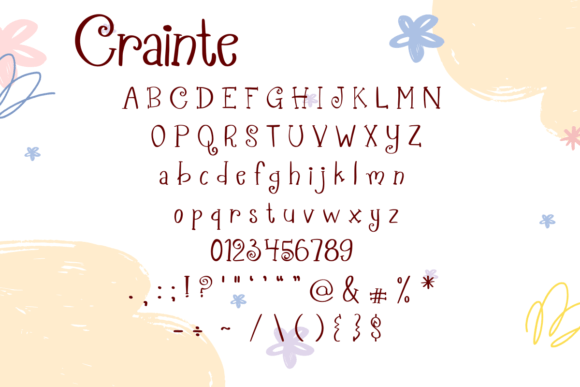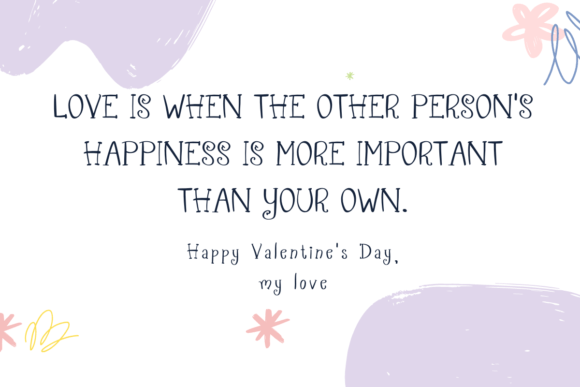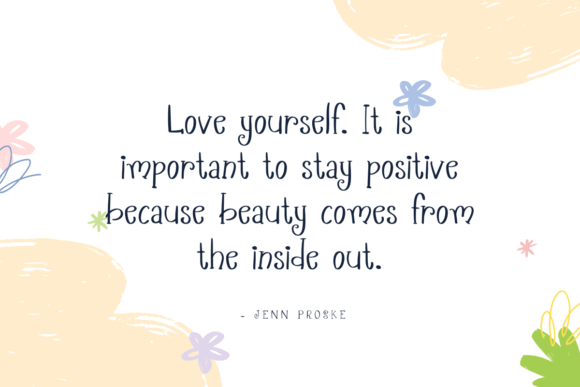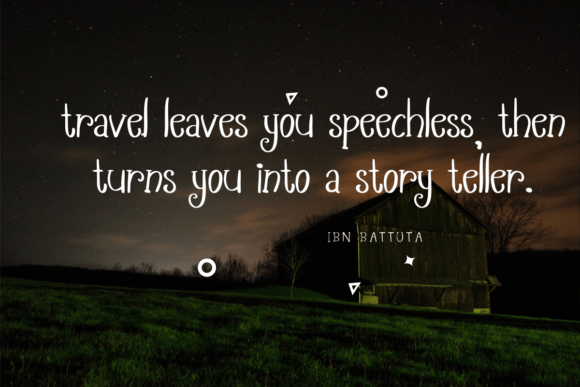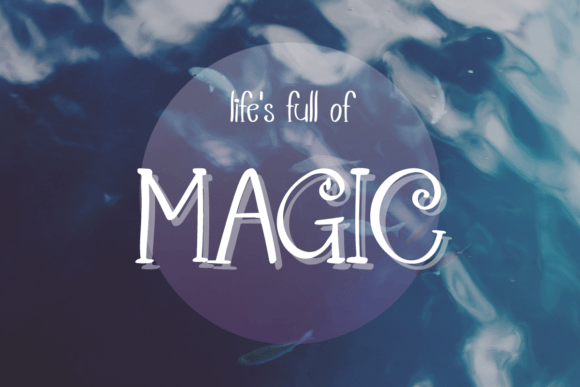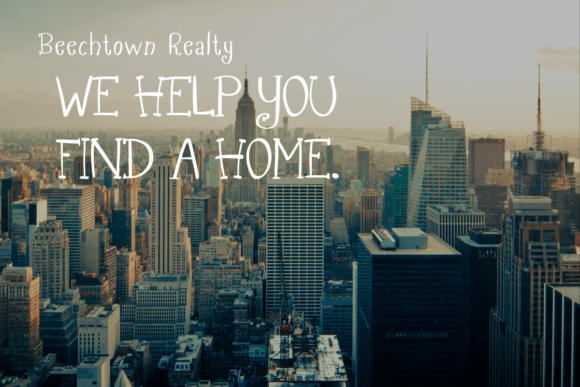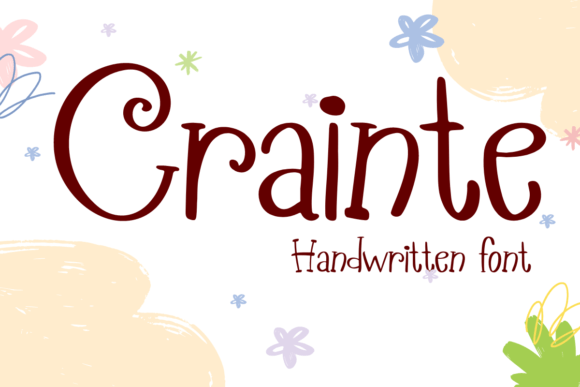
Crainte Font: The Cute and Friendly Handwritten Font for Creative Designs
Are you a designer or crafter looking for a font that can add a personal touch to your creative projects? Look no further than Crainte Font, a cute and friendly handwritten font that’s perfect for a variety of designs. In this article, we’ll explore the features and uses of Crainte Font, and show you how it can elevate your designs to the next level.
What is Crainte Font?
Crainte Font is a beautiful, handwritten font that’s designed to be both cute and friendly. Its unique and charming style makes it perfect for a range of creative projects, from personal notes and diaries to professional designs and marketing materials. With its flowing lines and whimsical feel, Crainte Font is sure to capture the hearts of designers and crafters alike.
Uses of Crainte Font
So, what can you use Crainte Font for? The possibilities are endless! Here are some ideas to get you started:
- Note-taking and journaling: Crainte Font is perfect for taking notes, writing a diary, or jotting down ideas. Its friendly and approachable style makes it easy to read and write with.
- Greeting cards and invitations: Add a personal touch to your greeting cards and invitations with Crainte Font. Its cute and playful style is sure to delight the recipient.
- Banners and signs: Use Crainte Font to create eye-catching banners and signs for parties, events, or promotions.
- Social media posts: Make your social media posts stand out with Crainte Font. Its unique style is sure to grab the attention of your followers.
- Mugs, cards, and shirts: Create personalized gifts and merchandise with Crainte Font. Its friendly and approachable style makes it perfect for a range of products.
- Stationery and craft projects: Use Crainte Font to add a personal touch to your stationery, craft projects, and DIY designs.
Features of Crainte Font
Crainte Font has a range of features that make it perfect for creative designs. Here are some of its key benefits:
- Unique and charming style: Crainte Font has a one-of-a-kind style that’s both cute and friendly.
- Handwritten feel: Its handwritten feel makes it perfect for personal and creative projects.
- Easy to read and write with: Crainte Font is easy to read and write with, making it perfect for notes, journals, and other written designs.
- Versatile: Crainte Font can be used for a range of designs, from personal projects to professional marketing materials.
Tips for Using Crainte Font
Here are some tips for using Crainte Font in your designs:
- Experiment with different colors: Crainte Font looks great in a range of colors, so don’t be afraid to experiment and find the perfect hue for your design.
- Pair with other fonts: Crainte Font pairs well with other fonts, so try combining it with different styles to create a unique look.
- Use for headings and body text: Crainte Font is perfect for both headings and body text, making it a versatile font for a range of designs.
- Add embellishments: Add embellishments, such as flowers or stars, to give your design a personal touch.
Crainte Font is a beautiful, handwritten font that’s perfect for designers and crafters looking to add a personal touch to their creative projects. With its unique and charming style, Crainte Font is sure to capture the hearts of anyone who sees it. Whether you’re creating notes, greeting cards, or professional designs, Crainte Font is the perfect choice. So why not give it a try and see what amazing designs you can create?